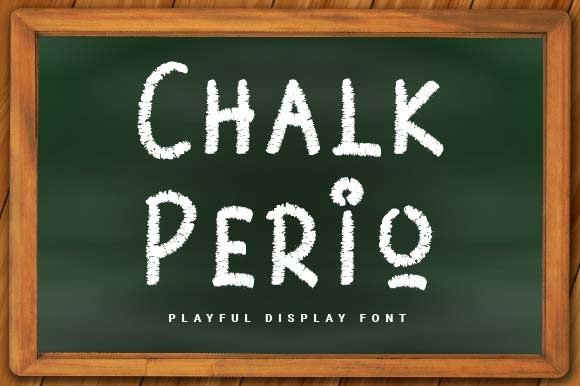
Discover the Charm of Chalk Perio Font
Have you ever been in a moment where you’re brainstorming a creative project, and the perfect font just seems to slip right out of your mind? It’s frustrating, but it’s also the perfect opportunity to stumble upon something truly special – like the Chalk Perio Font. This delightful display font is an original take on the classic chalkboard aesthetic, making it perfect for adding a touch of whimsy to your designs.
Chalk Perio Font is a must-have for designers looking to add a playful touch to their projects. With its authentic, hand-written feel, it’s ideal for letterheads, titles, and stationery. Whether you’re working on a crafty project or just need a font to elevate your brand’s visual identity, Chalk Perio Font is sure to deliver. Its versatility and charm make it a valuable addition to any designer’s toolkit, and we can’t wait to see what you create with it!
- Font Style: A unique, hand-drawn font with a chalkboard-inspired aesthetic.
- Unique Characteristics: Features a distressed, textured look with subtle imperfections, giving it a unique, handcrafted feel.
Designer Review: Chalk Perio Font
Overall, I think the Chalk Perio Font is a great addition to any designer’s toolkit, but it’s not without its limitations. Let’s start with what works well:
- ✨ The font’s unique, hand-drawn aesthetic makes it perfect for adding a touch of whimsy to designs, particularly in children’s materials or educational content.
- ✨ The font’s high level of customizability, including its variable font technology, allows designers to fine-tune the style to fit their specific needs.
- ✨ The font’s legibility is good, making it suitable for body text and other large blocks of text.
Now, let’s talk about the limitations:
- ⚠️ The font’s lack of consistency in its letterforms can make it difficult to read in certain contexts, particularly in smaller text sizes.
- ⚠️ The font’s high level of customizability can be overwhelming for designers who are new to variable fonts or aren’t familiar with the font’s specific design quirks.
Overall, I think the Chalk Perio Font is a great choice for designers who are looking to add some personality to their designs. While it may have some limitations, its unique aesthetic and high level of customizability make it a valuable addition to any designer’s toolkit.
Chalk Perio Font is ideal for:
- Creating whimsical and playful designs.
- Adding a touch of nostalgia to your designs.
- Creating hand-drawn or hand-painted effects.
For best results, use Chalk Perio Font in conjunction with other distressed or hand-drawn fonts to create a cohesive design aesthetic.